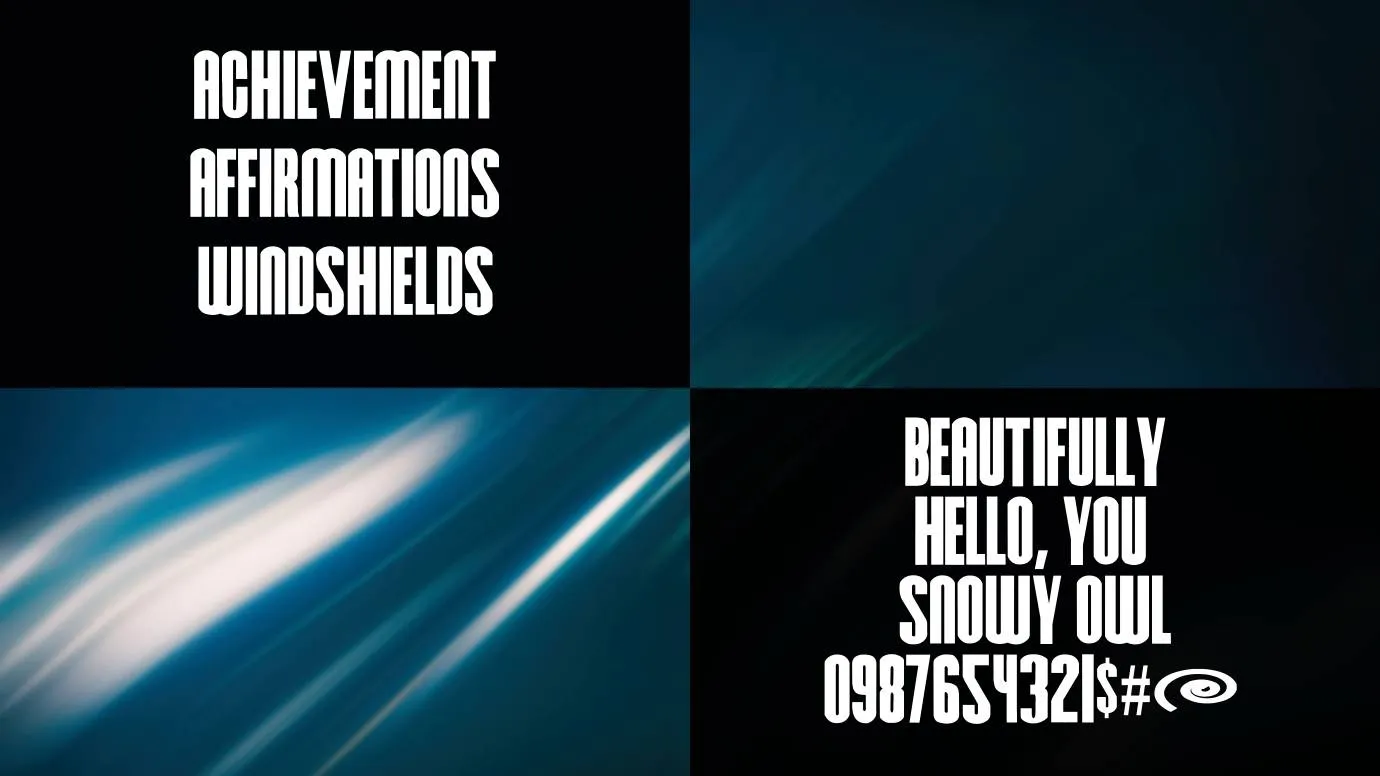
Designed and published by a famous creator Sharkshock Fonts. In 1894 the company was established by Milton S. Hershey. The Hershey Logo Font offers a nice textural impression for viewers and resembles a family of logo typefaces.
It is offered in a variety of weights and italic and regular styles. Numerous additional characters, optional ligatures, superiors and inferiors, fractions, figures in the old style, tabular figures, and other things are also included.
It features a full set of symbols, including punctuation errors, numerals, digits, and both uppercase and lowercase letters. It contains a number of alternative characters that are accessible through the OpenType standard.
Creator of Hershey Logo Font
This simple and surprising typeface is designed and published by a famous creator Sharkshock Fonts.
This font style is designed with a special and uniform style. This single attractive style is a combination of different factors, containing uppercase letters and lower-case letters, digits, punctuations, characters, unique symbols, glyphs, and numerous language support.
| Name | Hershey Logo Font |
| Style | Decorative |
| Designer | Sharkshock Fonts |
What is the Hershey Logo Font?
It was designed and published by a famous creator Sharkshock Fonts. In 1894 the company was established by Milton S. Hershey.
It is a wonderful tool for any designer because it offers various functions. It can be utilized to make designs that are beautiful and easily recognizable.
What kind of font is Hershey Logo Font?
It is a member of the decorative typeface family. You can utilize it for many extra designs and projects. It has a graceful and unique texture look appearance.